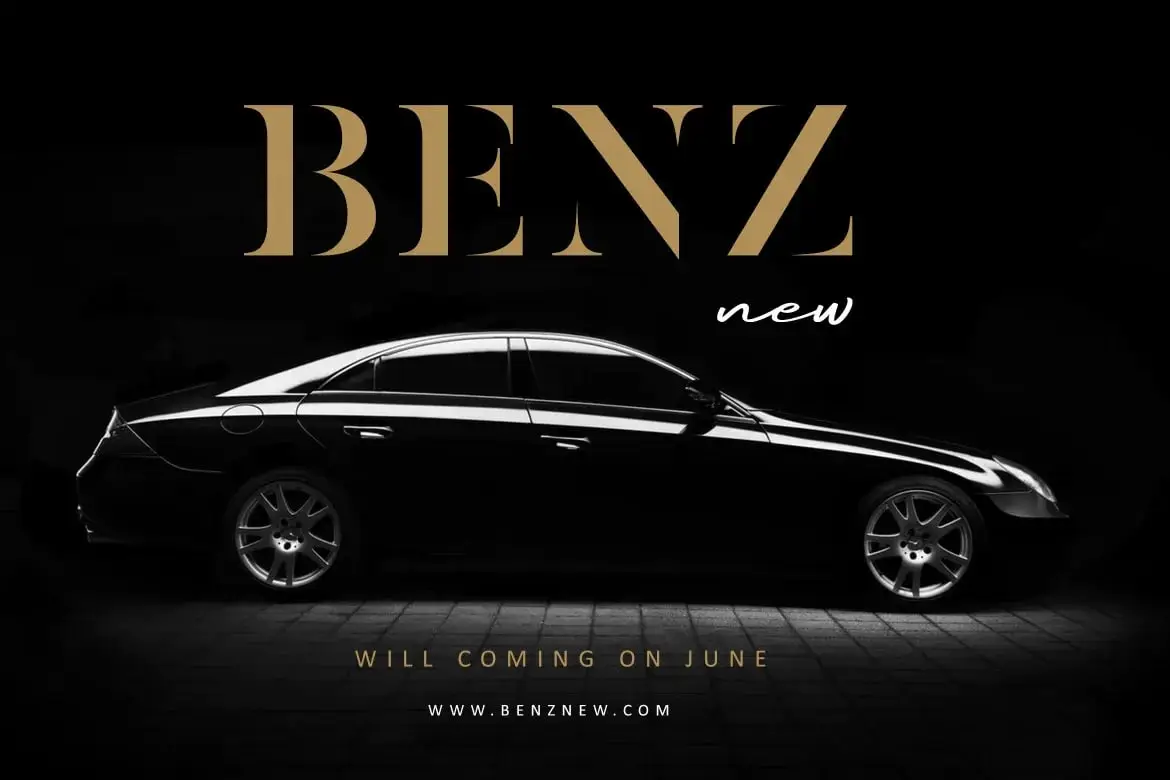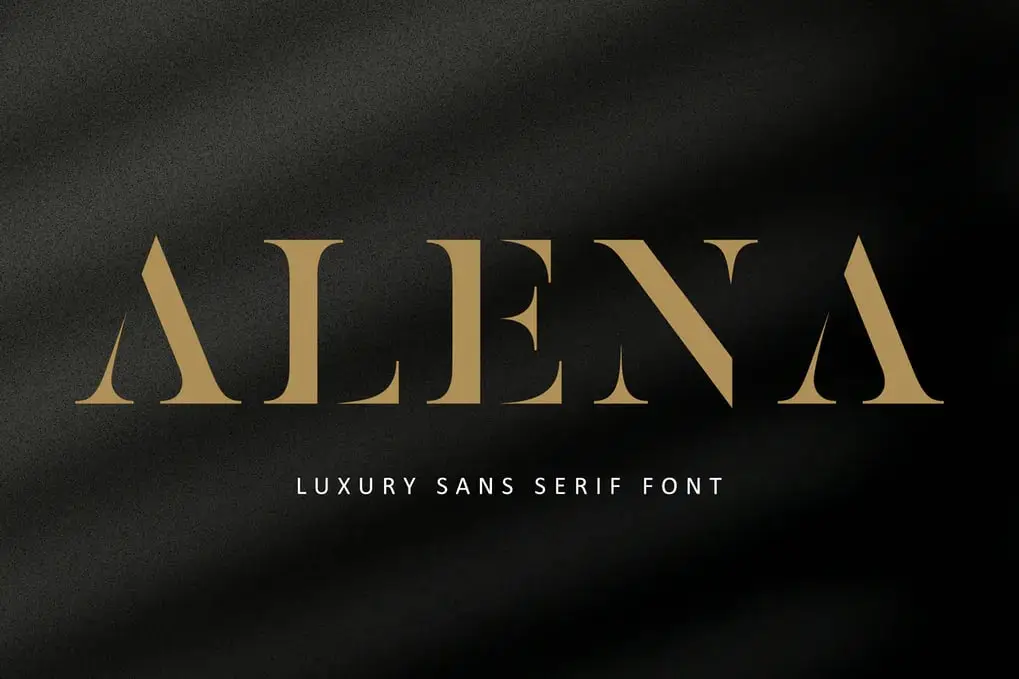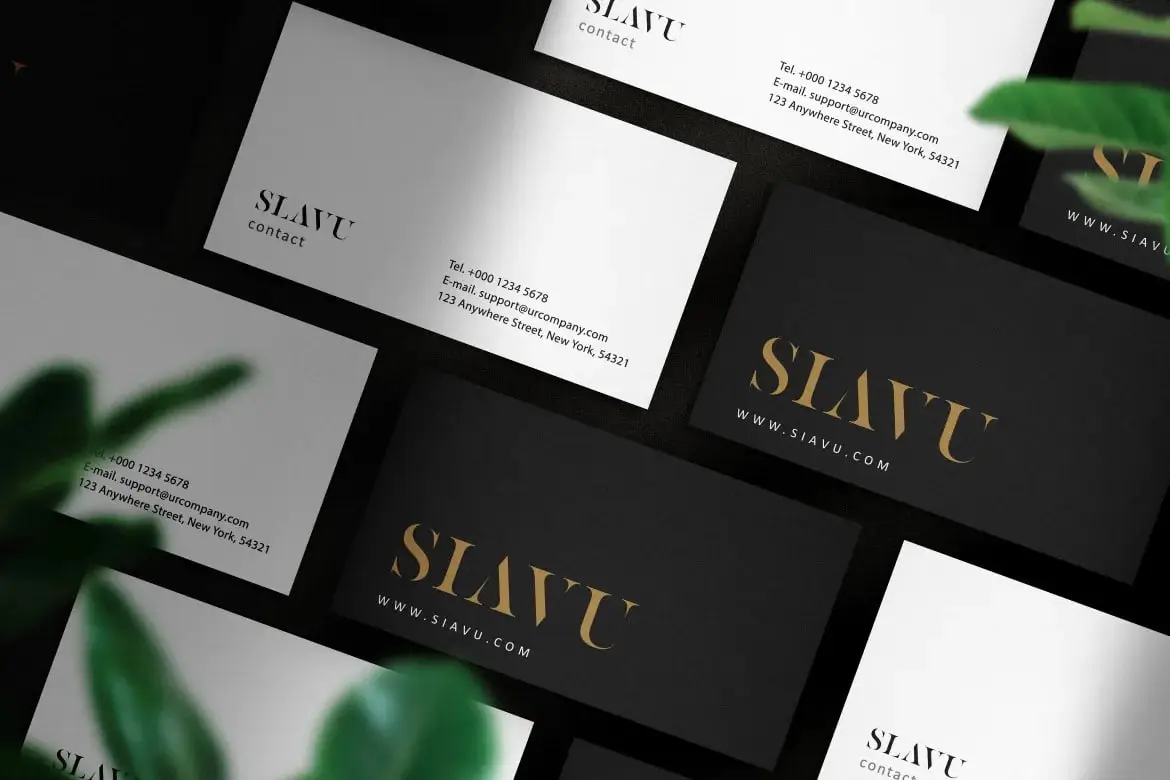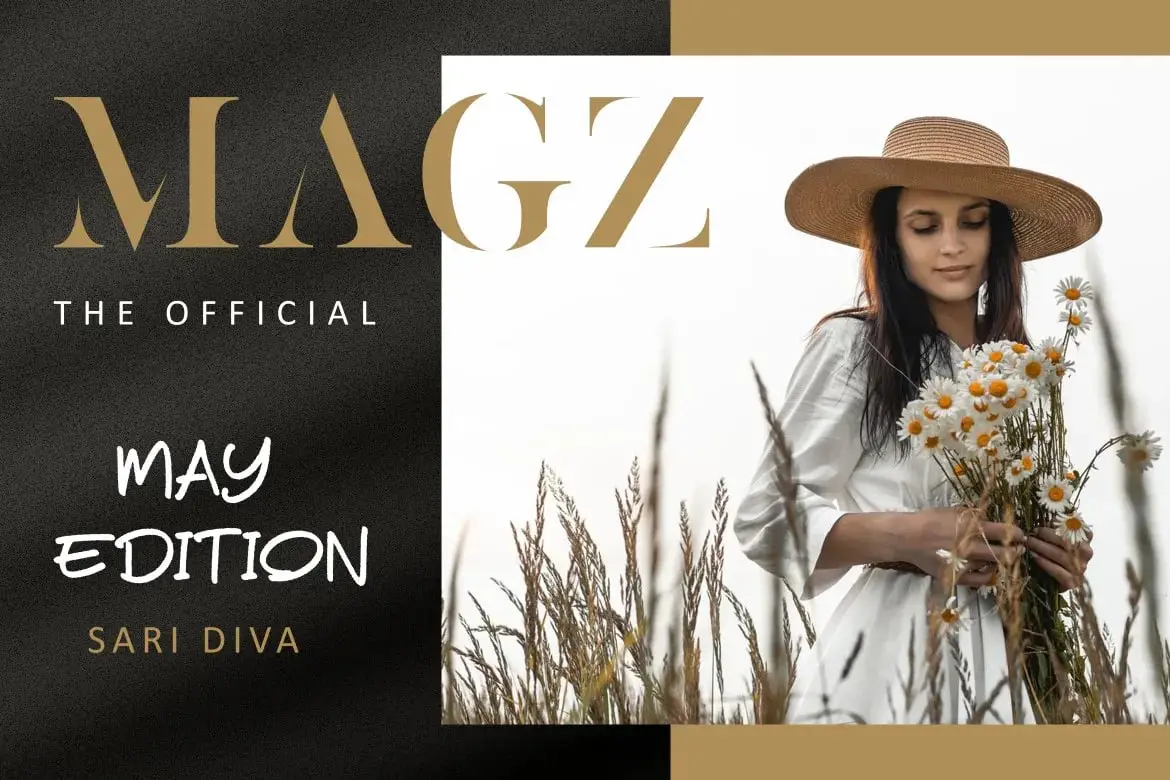
Typecoconut-Alena Advertisement Font
The Typecoconut-Alena Advertisement Font is a stylish and versatile typeface designed to make your text stand out. With its unique character set and elegant curves, this font is perfect for a variety of applications, including branding, logos, web design, and print materials.
• Weights: Light, Regular, Bold
• Ideal for advertisements, posters, and promotional materials.
• Use in digital and print formats to maintain clarity and style.
• Combine with complementary fonts for a cohesive design.